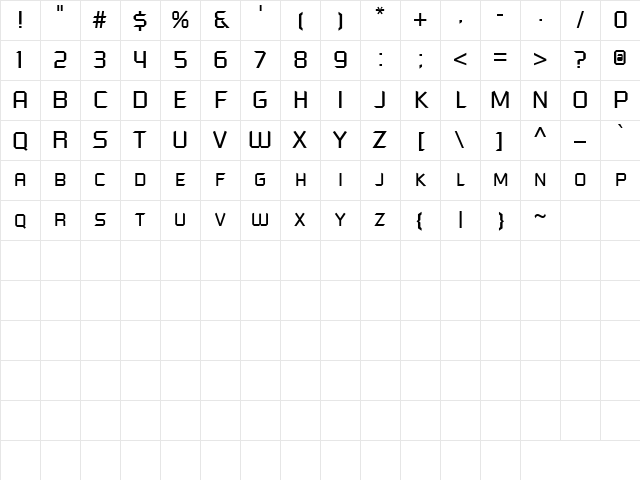
Futured Modern Free Font
Futured Modern
Style: Modern
Design Context for Futured
Futured has a distinctly futuristic character, with geometric precision and clean angles that feel at home in technology, gaming, and sci-fi contexts.